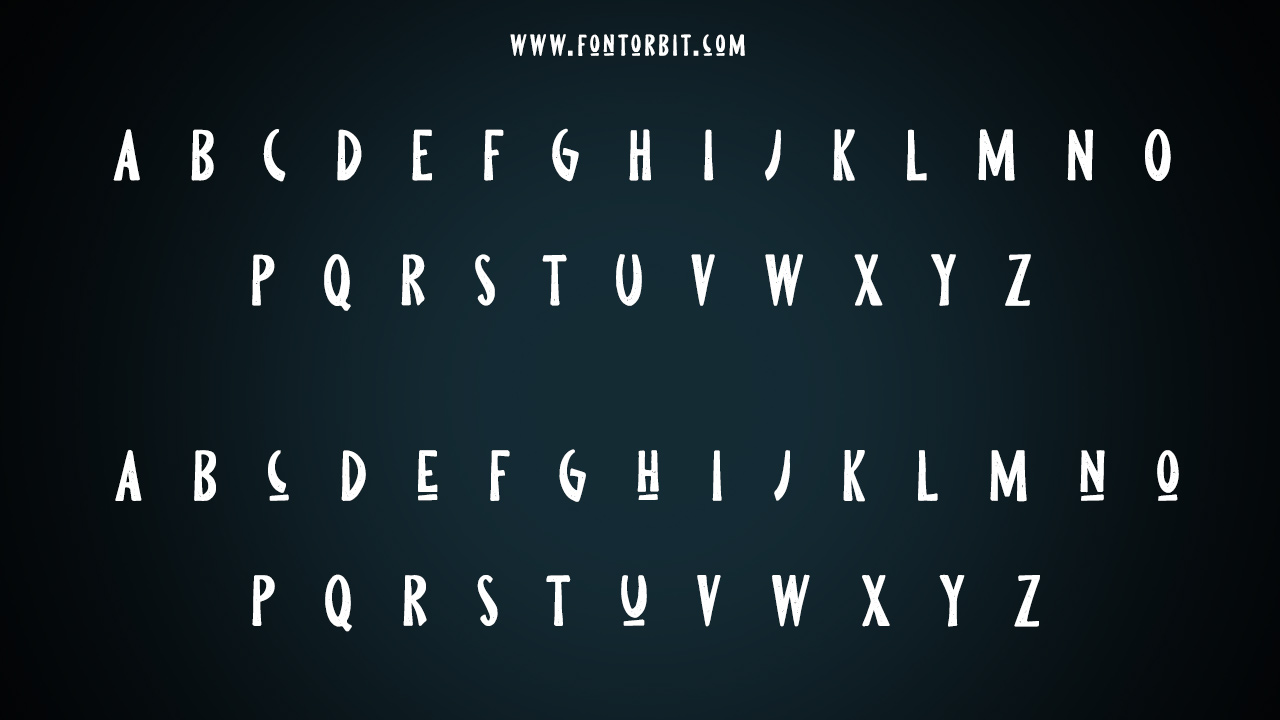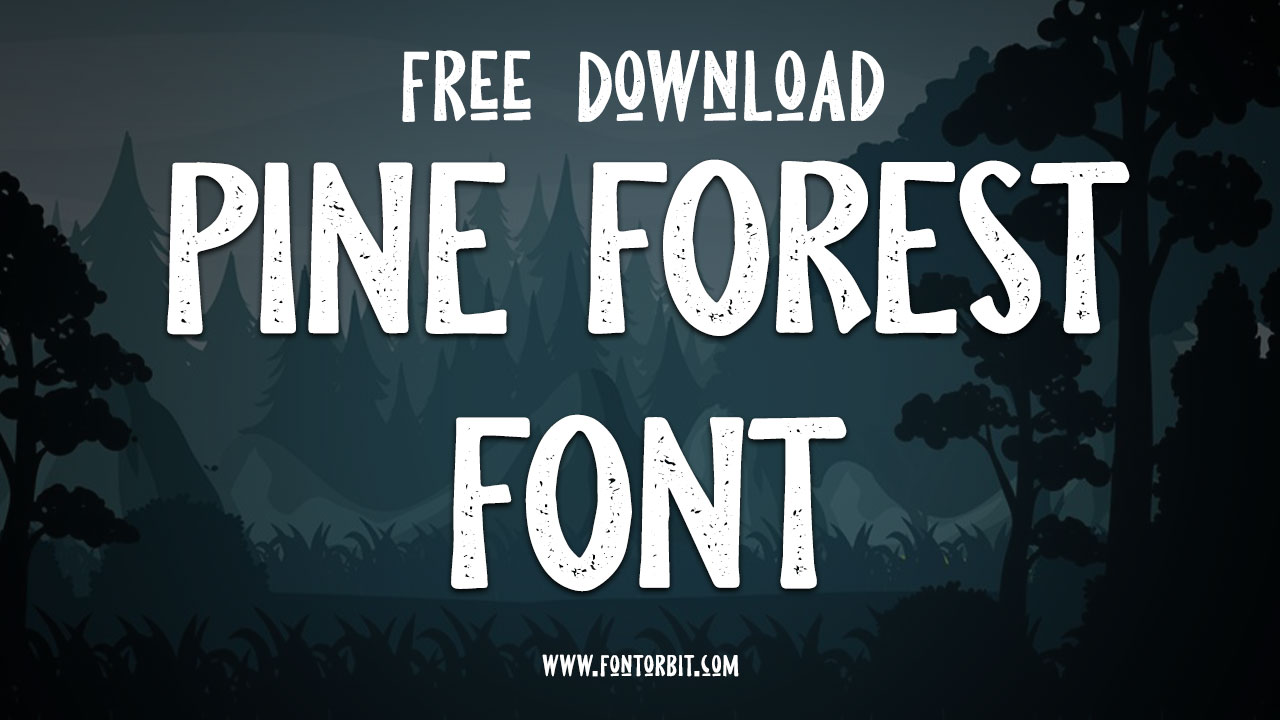
The Pine Forest Font Family
- Pine Forest Rough
- Pine Forest Press
- Pine Forest Italic Press
The Pine Forest Font boasts a handcrafted look with a playful character, reflecting the charm of outdoor adventures. It is perfect for vintage-themed designs and includes additional resources for enhanced creativity.
- Typography Design
- Product Packaging
- Quotes
- T-Shirts
- Label Badges
The Pine Forest Font is ideal for projects that need a whimsical, vintage touch. Its versatile design suits branding, creative design, and various print materials.
The Pine Forest Font by Dikas Studio provides a playful, hand-drawn style perfect for vintage and outdoor-themed projects. Its Rough and Press styles and extra design elements offer versatility and creativity for various applications.
1.What Are The Key Features Of The Pine Forest Font?
The font features a hand-drawn, playful style with Rough and Press variants, which is ideal for vintage and outdoor-themed designs.
2.What Are The International Language Support Features Of The Pine Forest Font?
The Pine Forest Font supports basic Latin characters and punctuation with limited international language coverage.
3.What Are The Design Trends Associated With The Pine Forest Font?
Pine Forest embraces vintage, handcrafted, and outdoor-themed trends, featuring a playful, rustic design.
4.What Is The Font Size Range For The Pine Forest Font?
Pine Forest is versatile and suitable for small text and large display sizes.
5.What Are The Best Design Applications To Use With The Pine Forest Font?
Ideal for branding, logos, product packaging, invitations, posters, and creative print materials.